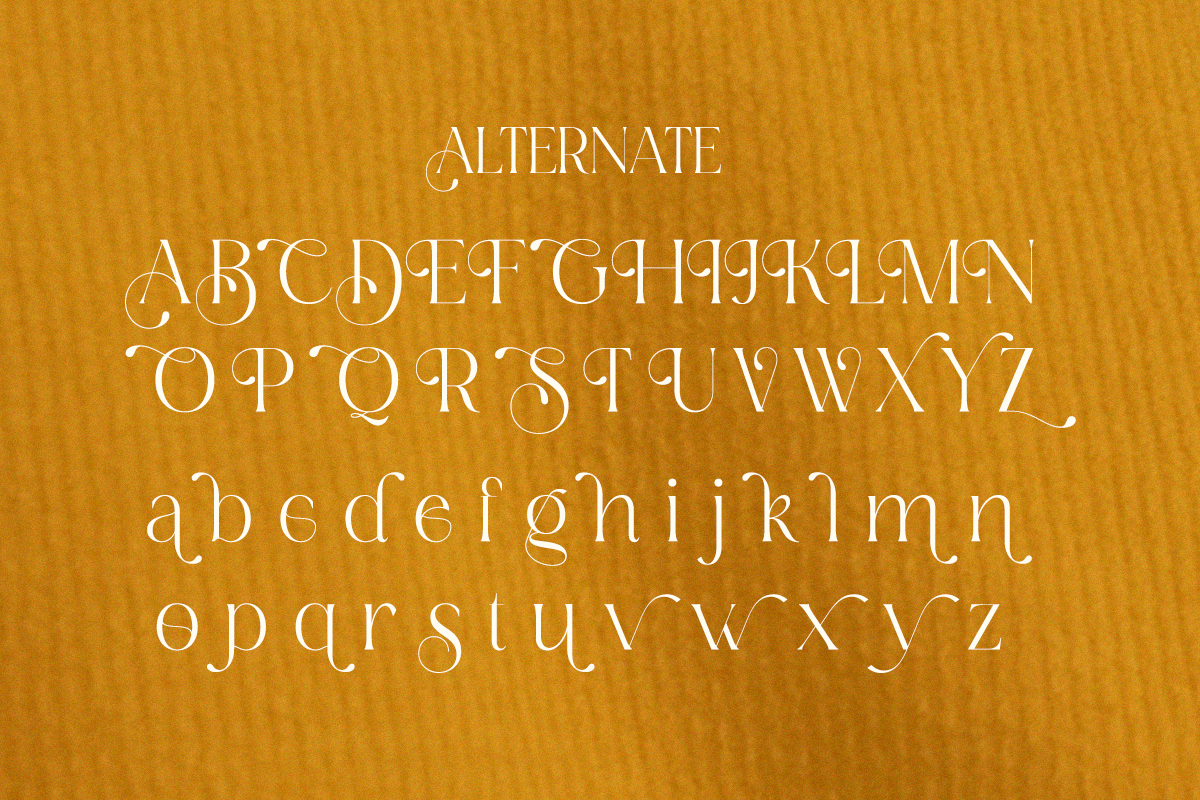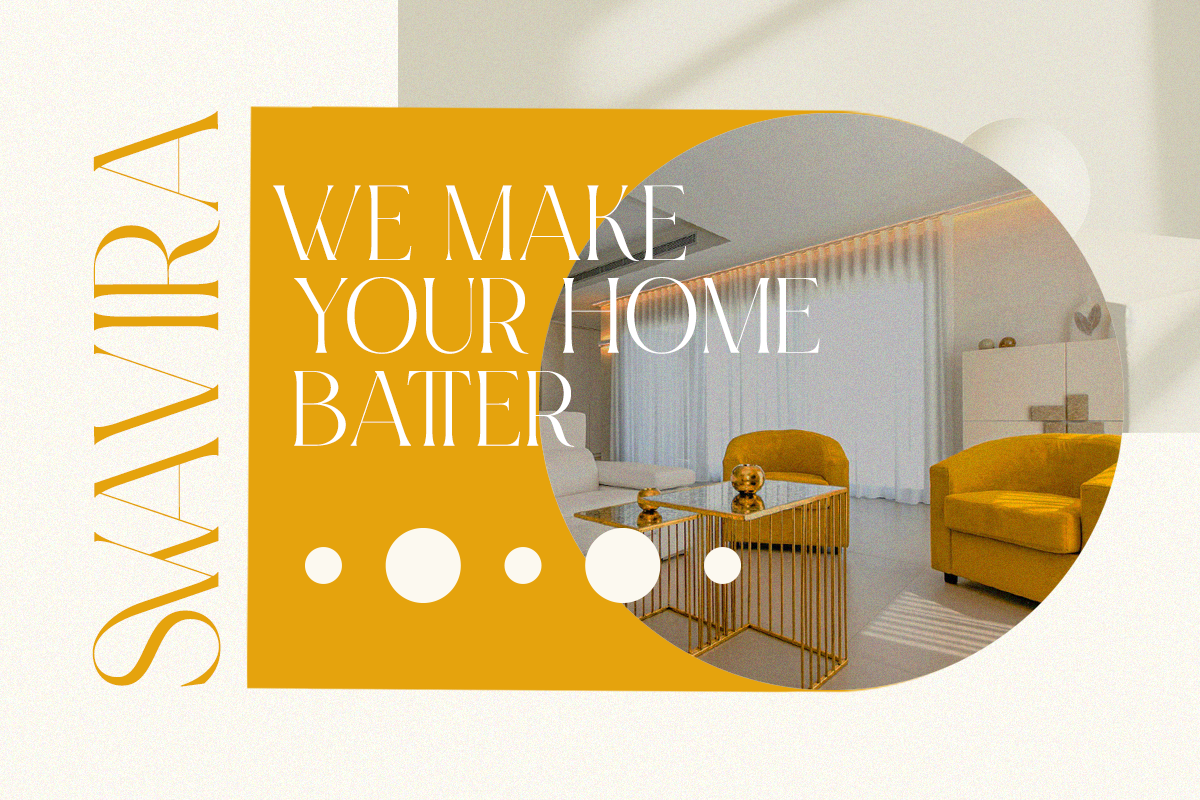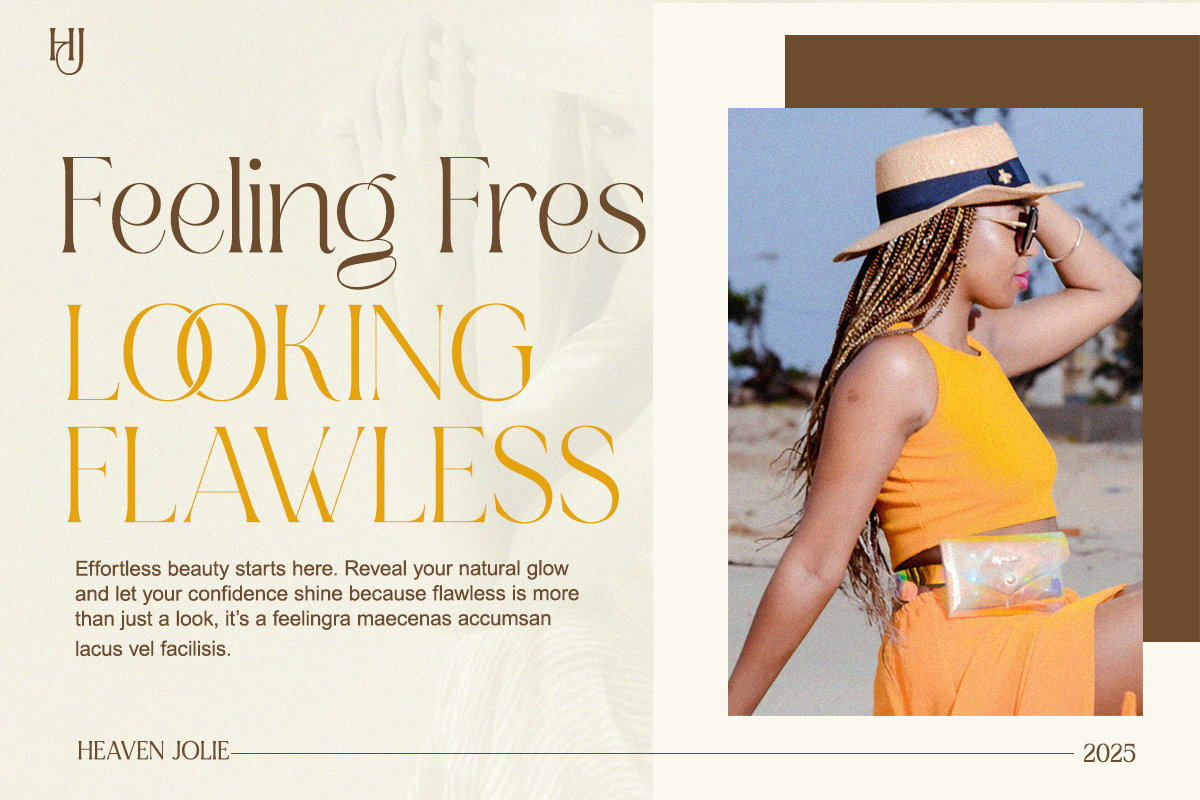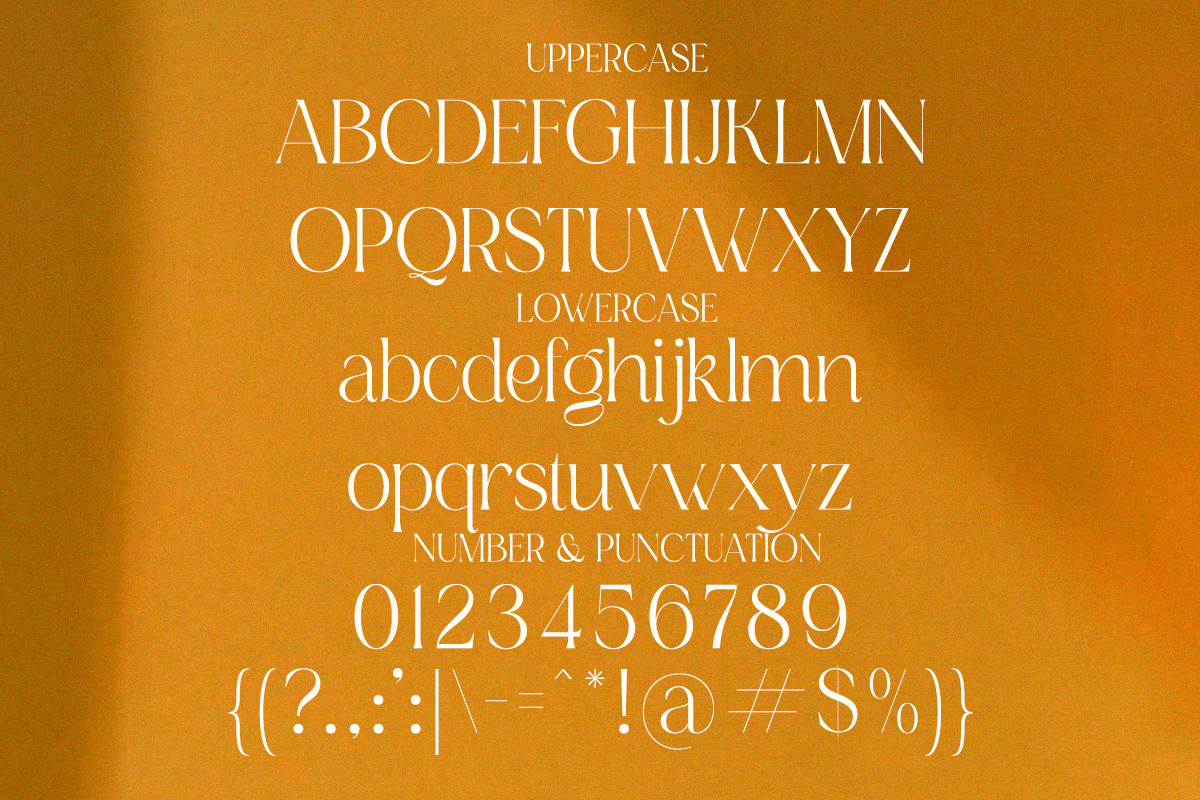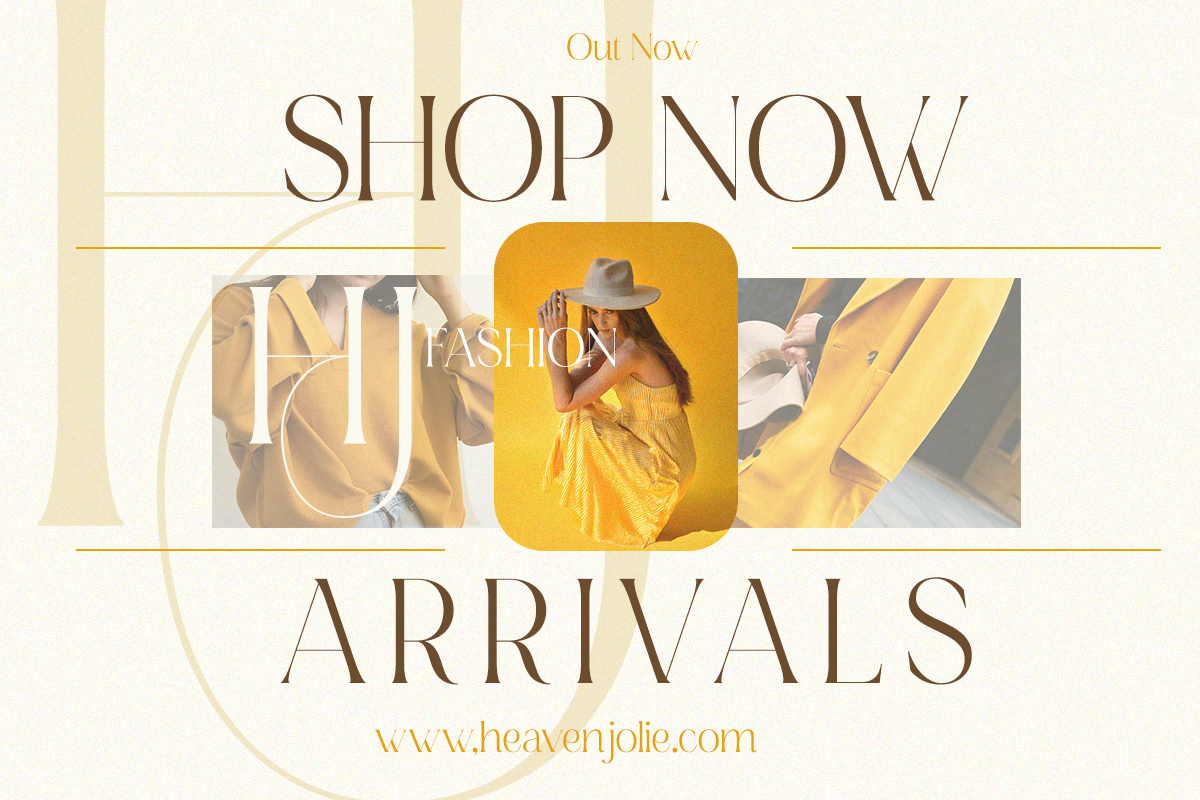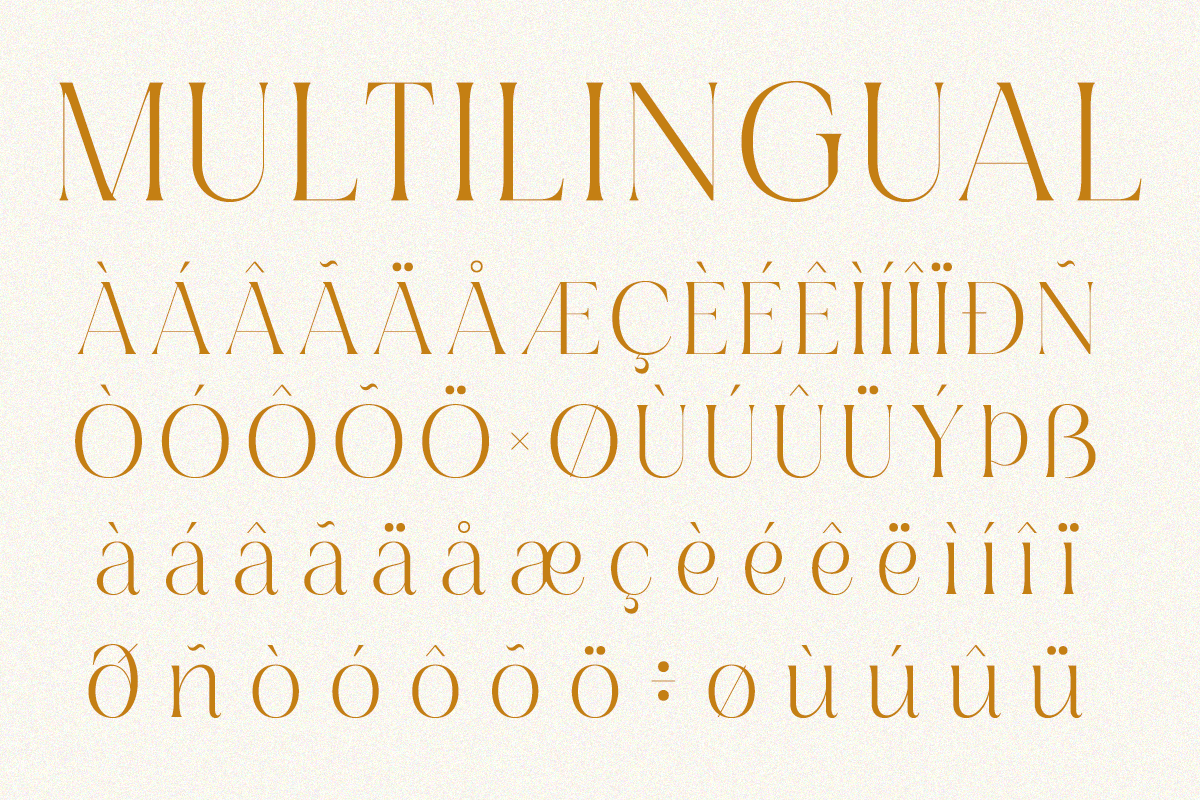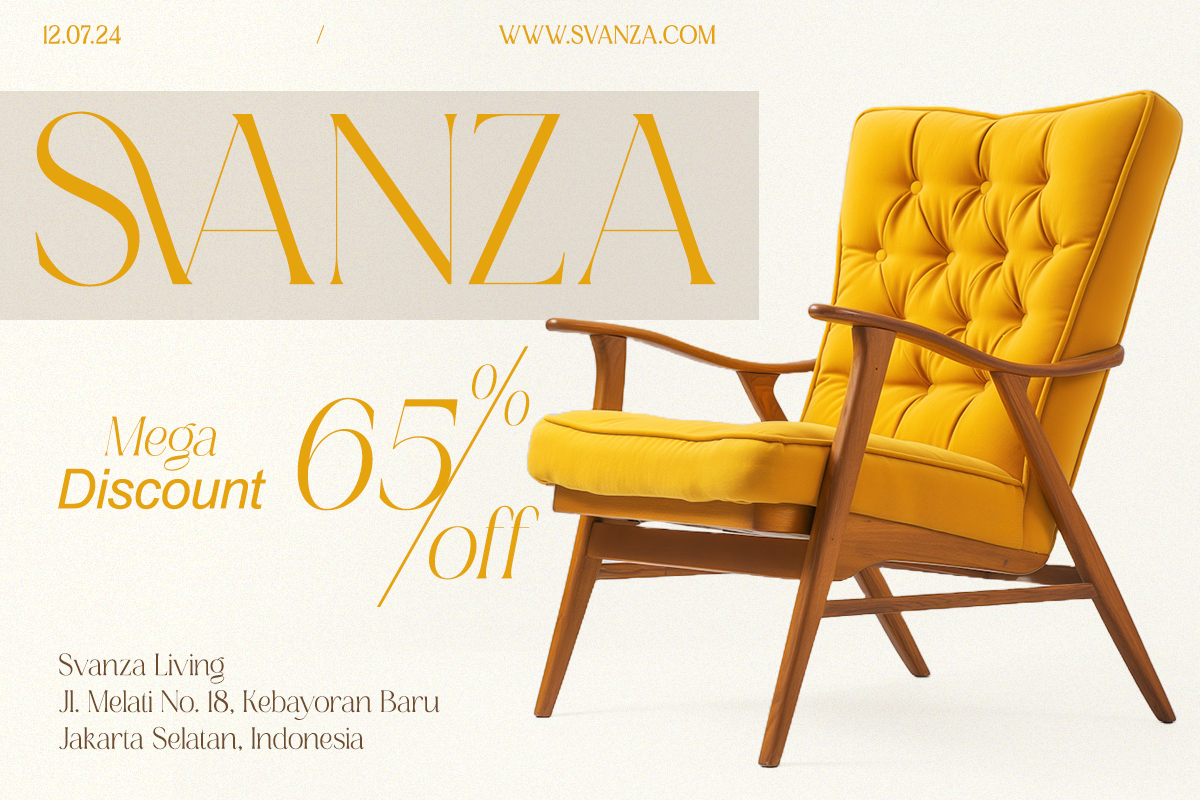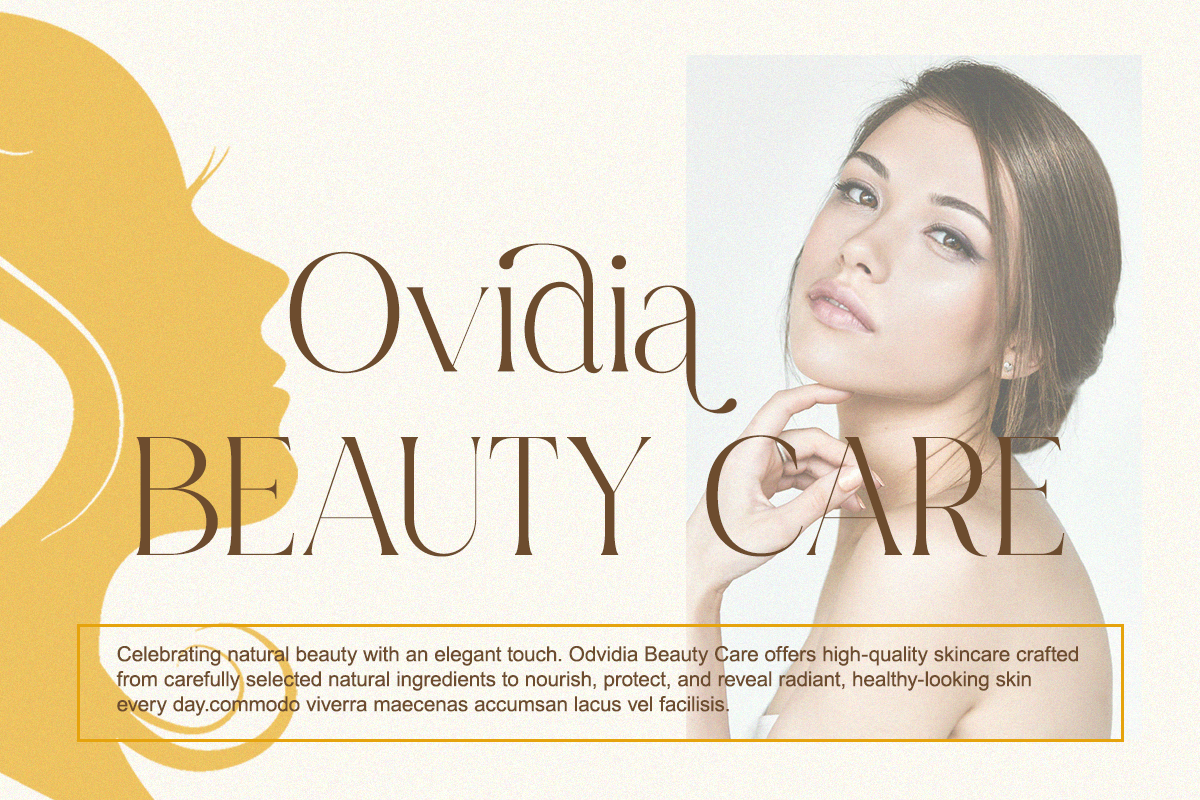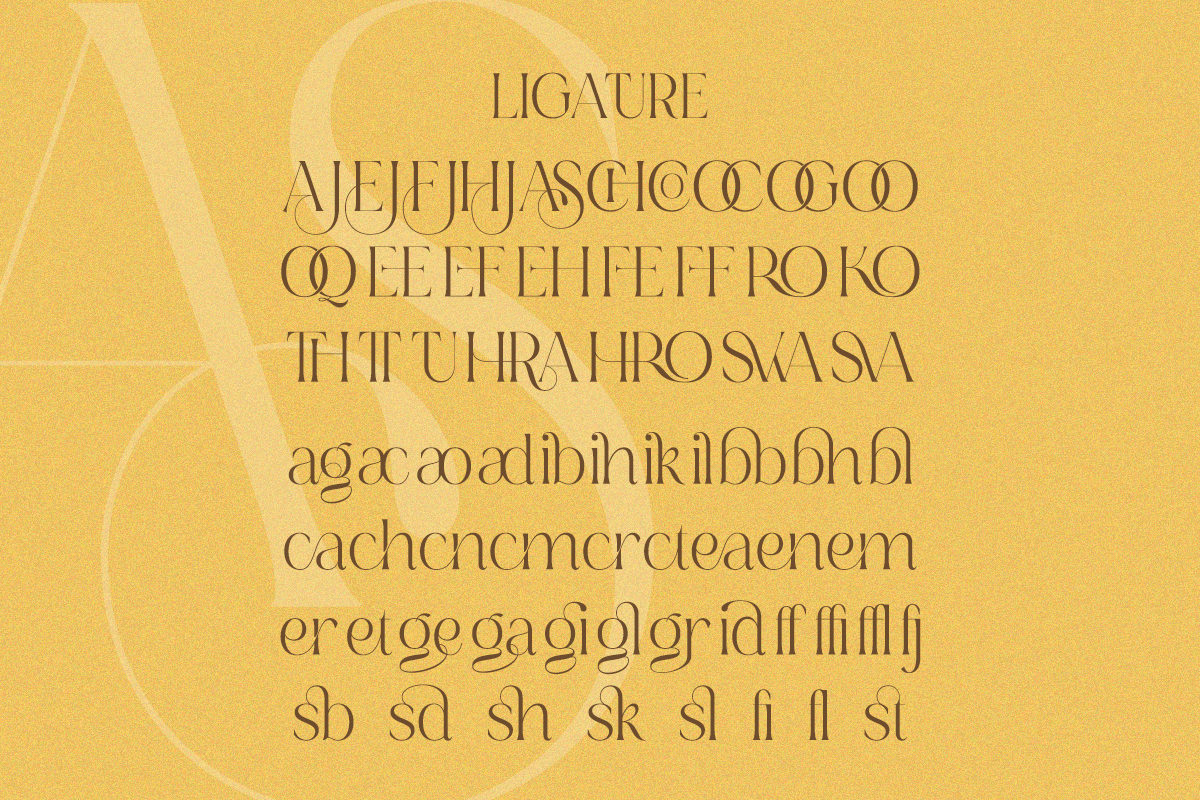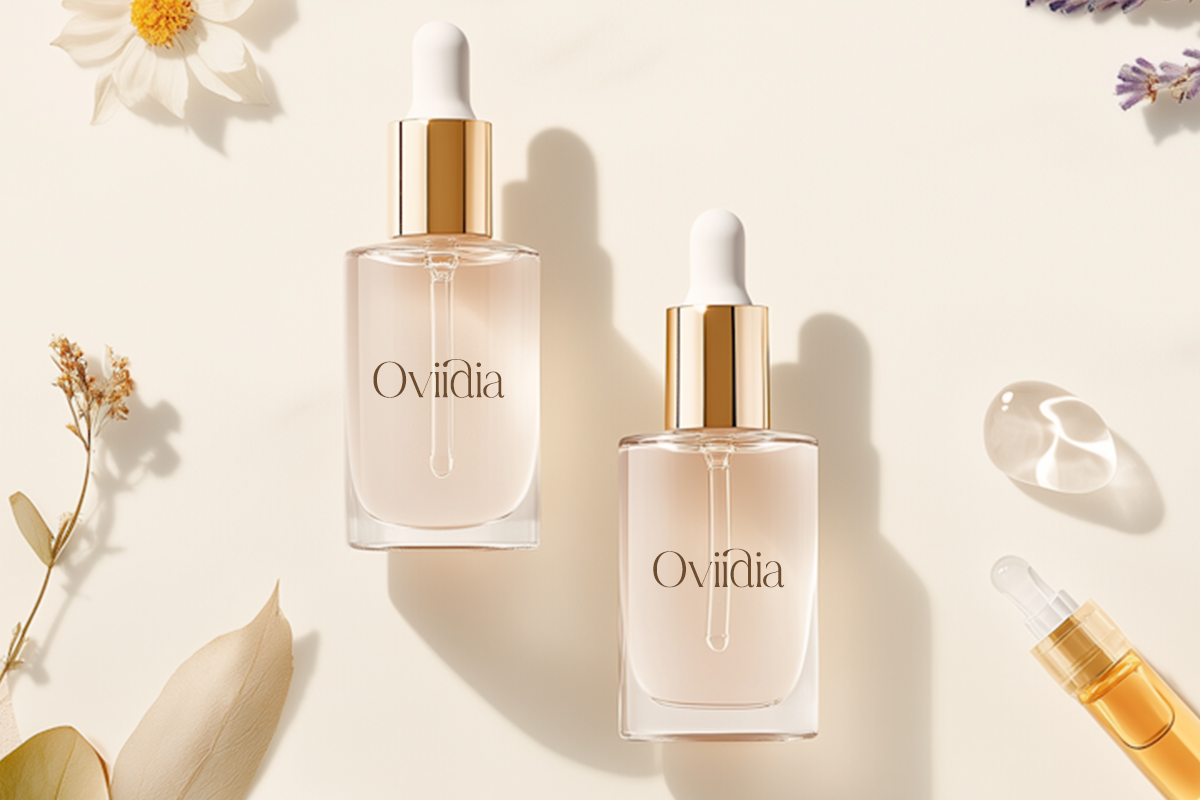
Renea - Modern Minimal Elegant Serif
Renea is a stylish serif typeface with a refined sense of modernity and elegance. Each curve and serif is crafted to reflect luxury and balance, making it perfect for logos, packaging, magazine covers, and fashion branding. Renea speaks softly yet confidently — ideal for projects that need a touch of grace and high-end design.
Alternates & Ligatures
Uppercase, Lowercase, Numerals, Punctuation
Perfect For: Editorial design, logo creation, product packaging, photography branding, and minimalist posters.